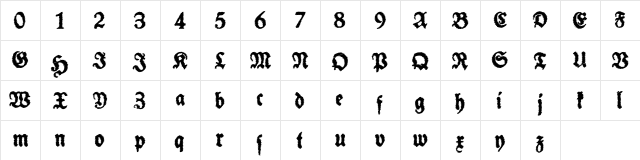
Schneidler Halb Fette Trash Regular
Design Context for Schneidler Halb Fette Trash Typeface
Schneidler Halb Fette Trash is a composed and adaptable typeface that performs quietly and consistently across a wide range of design contexts.